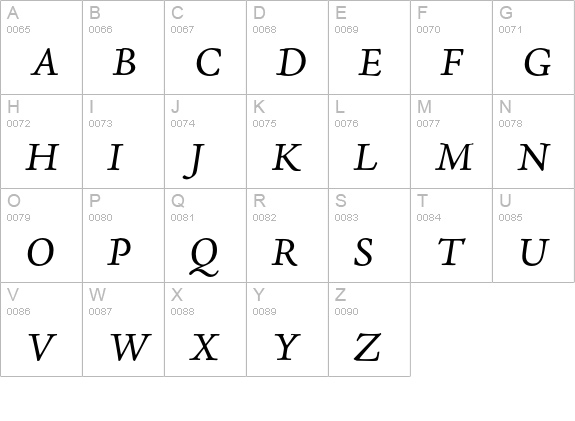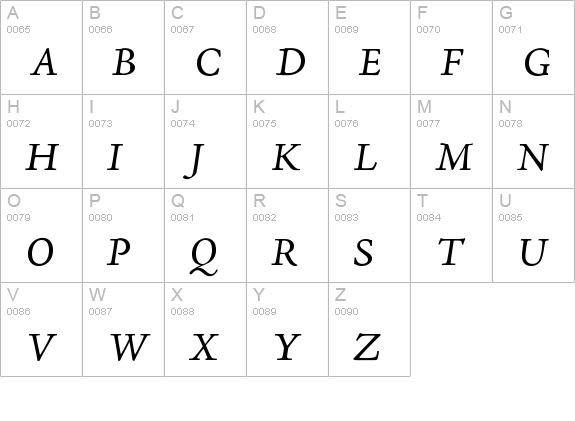
Adobe Jenson Pro Italic Caption is a distinctive, italic variant in the Adobe typeface family \xE2\x80\x94 well suited to design and typography projects.
Adobe Jenson Pro Italic Caption is a beautifully crafted font that exudes elegance and sophistication. Its sleek and flowing italic design adds a touch of refinement to any project, making it perfect for captions and emphasis. The delicate curves and subtle serifs of this font create a sense of timeless beauty, making it a popular choice for designers seeking a classic and sophisticated look. What's even better is that Adobe Jenson Pro Italic Caption is available for free download at FontsMarket.com. This means you can easily access this premium font without any cost, making it a valuable addition to your design toolkit. Whether you're working on a print project, digital design, or anything in between, Adobe Jenson Pro Italic Caption is sure to elevate your work with its grace and charm. Download it today and enhance your designs with this exquisite typeface.